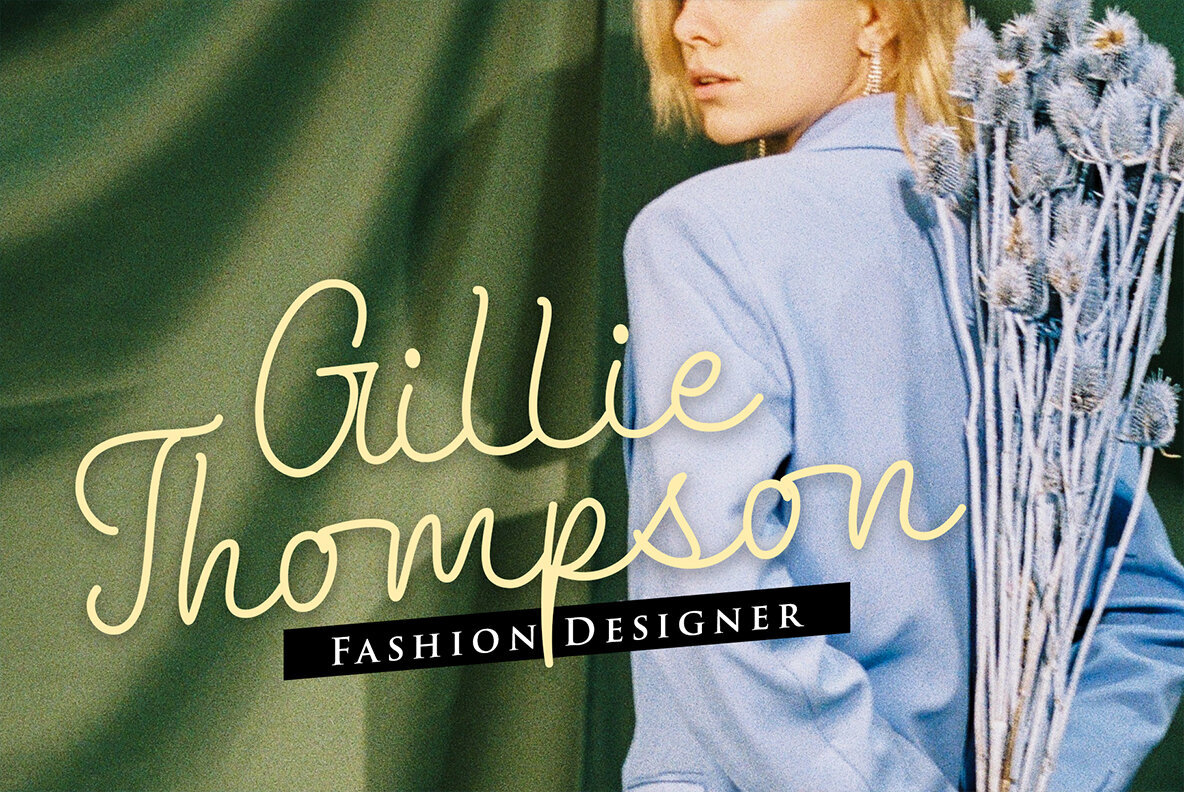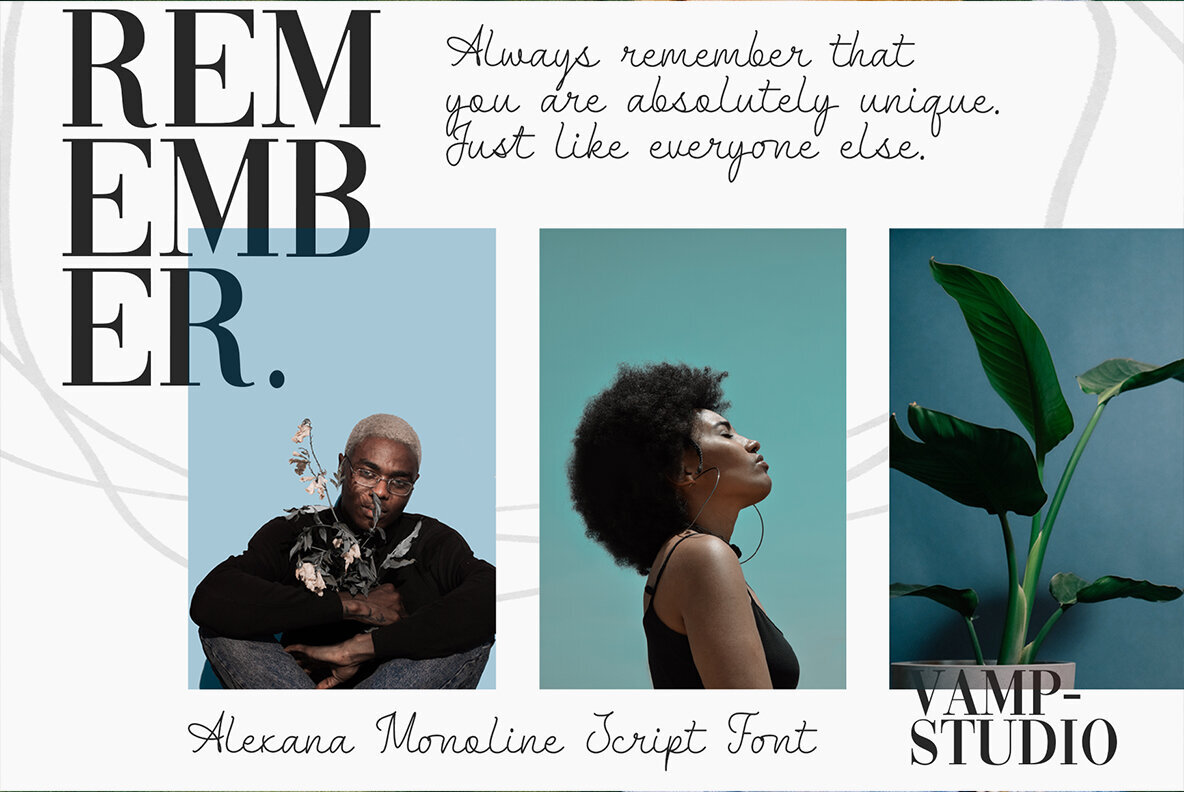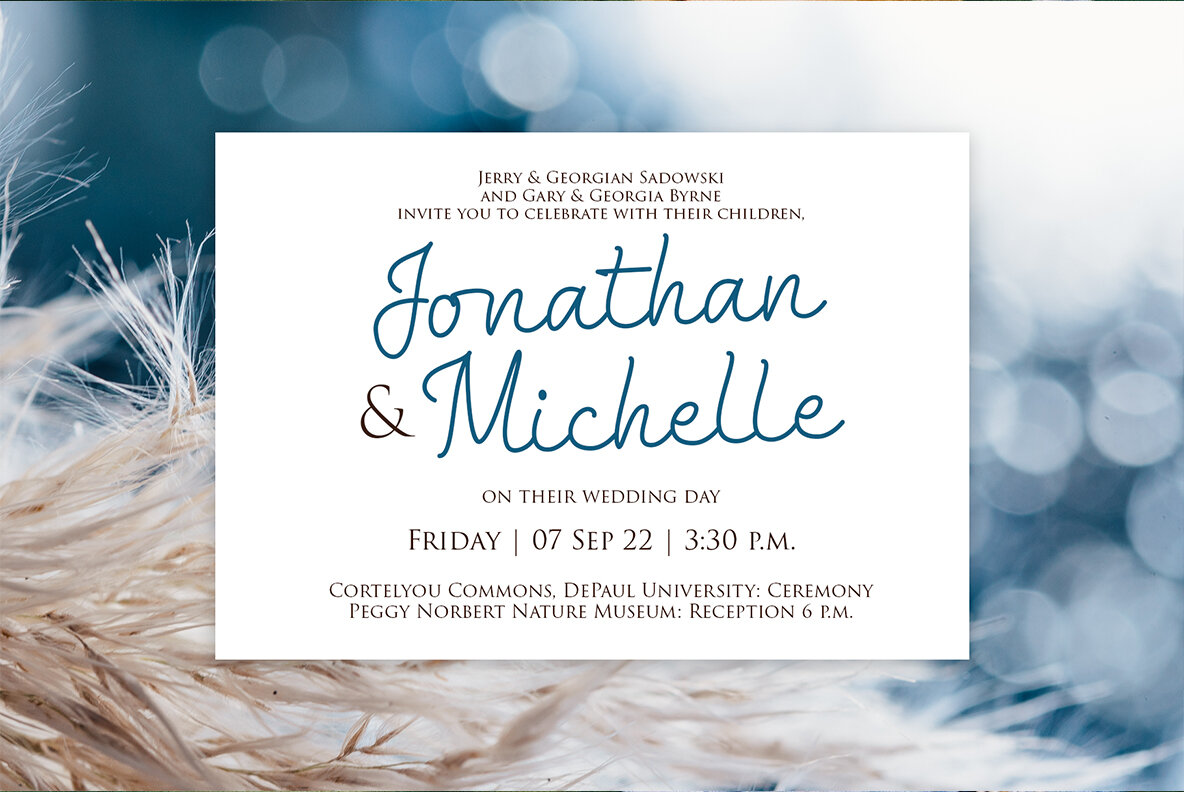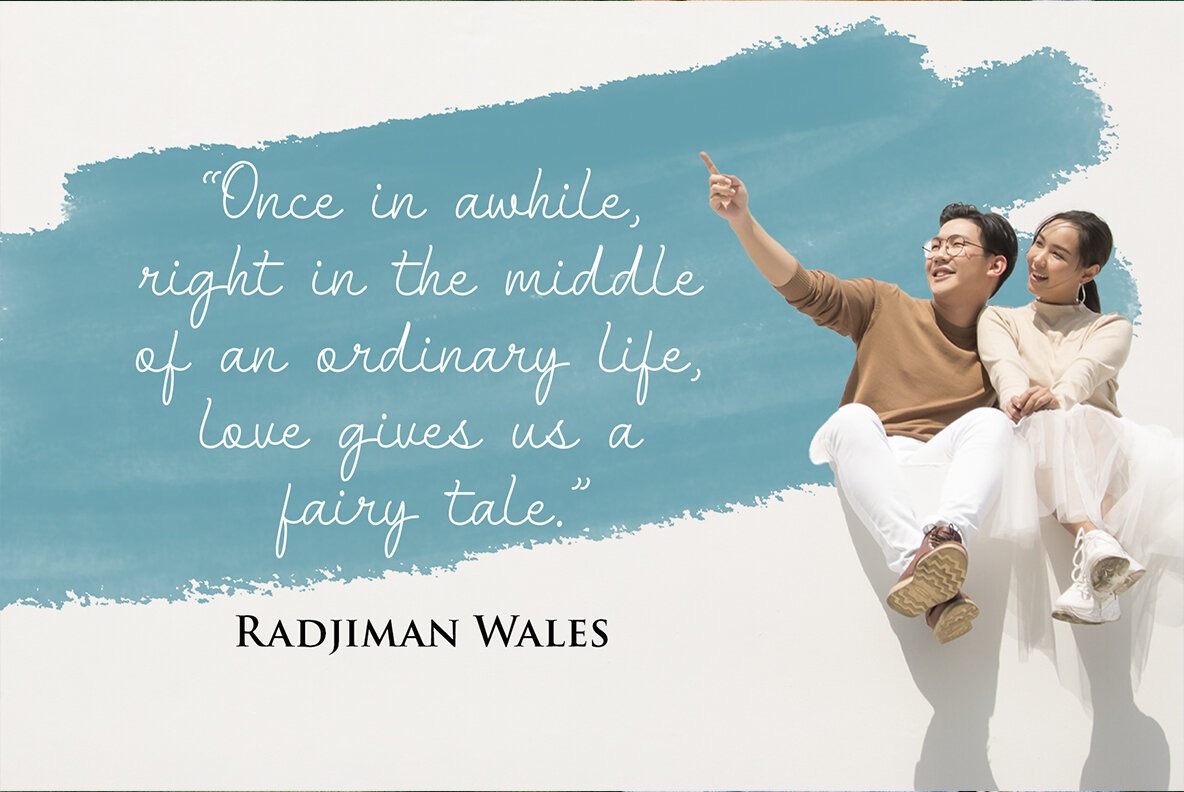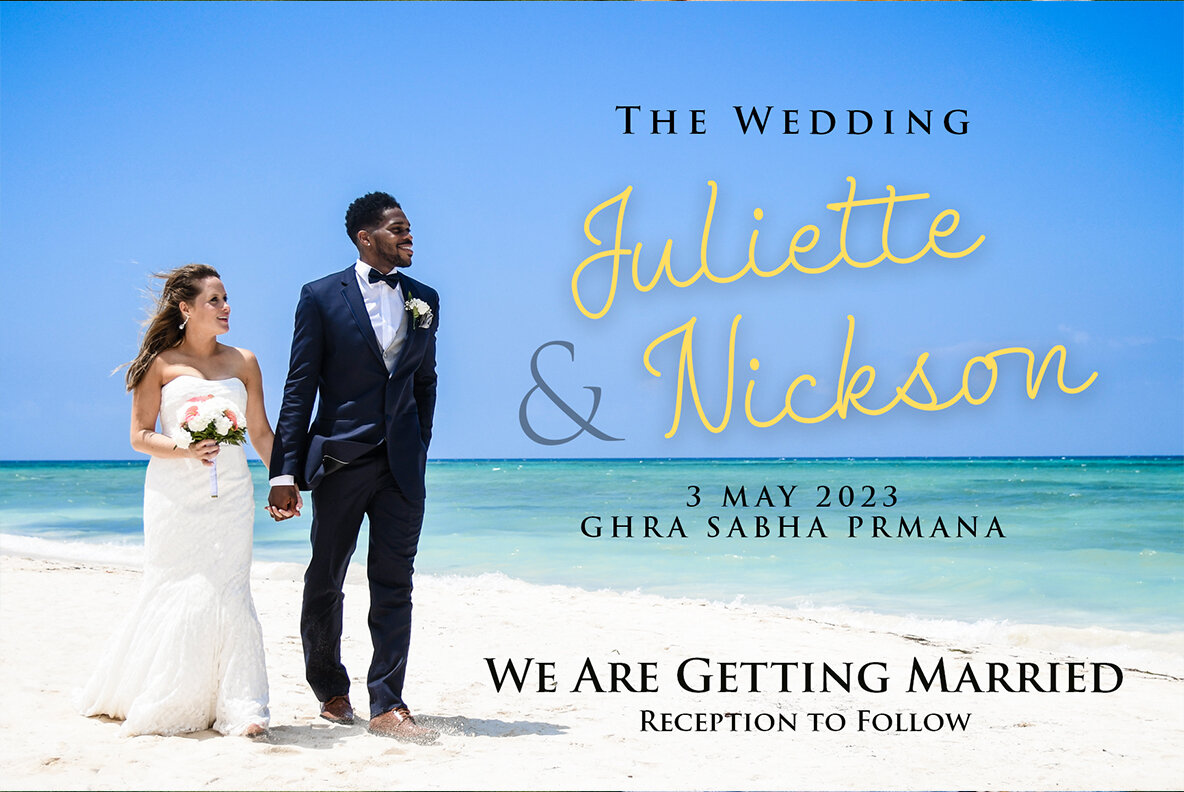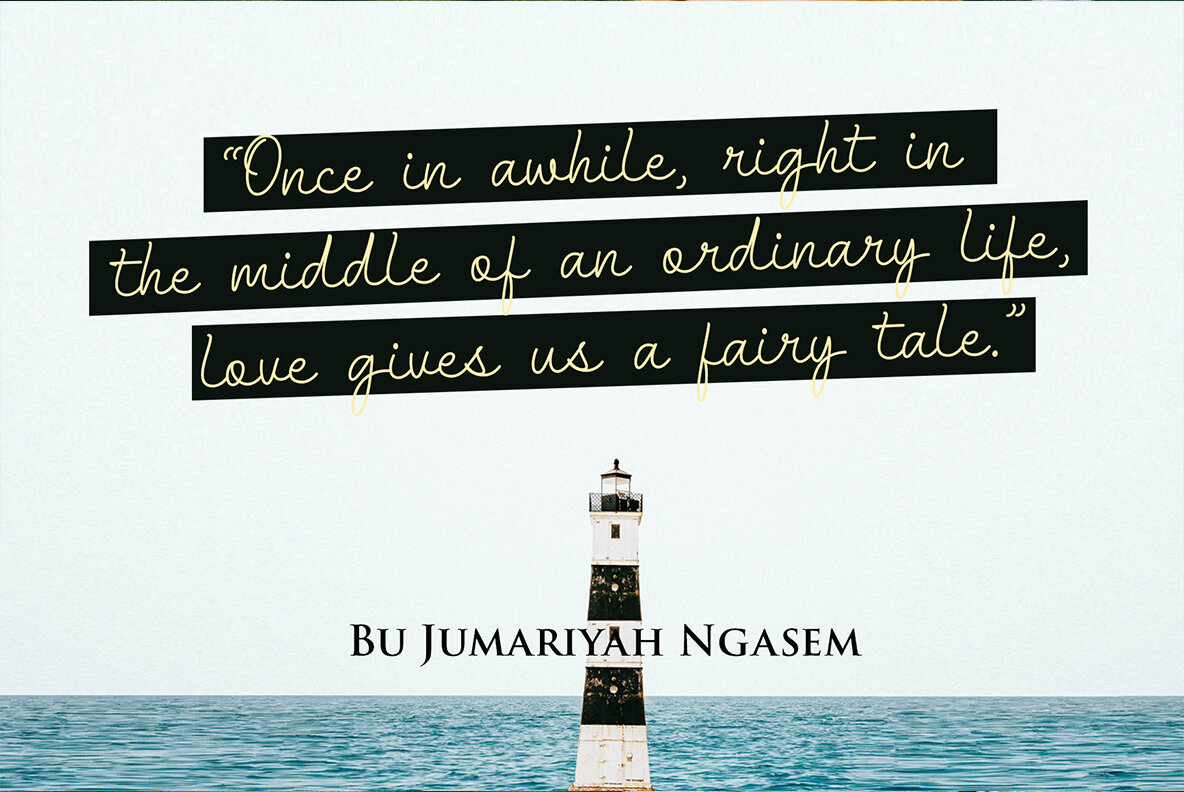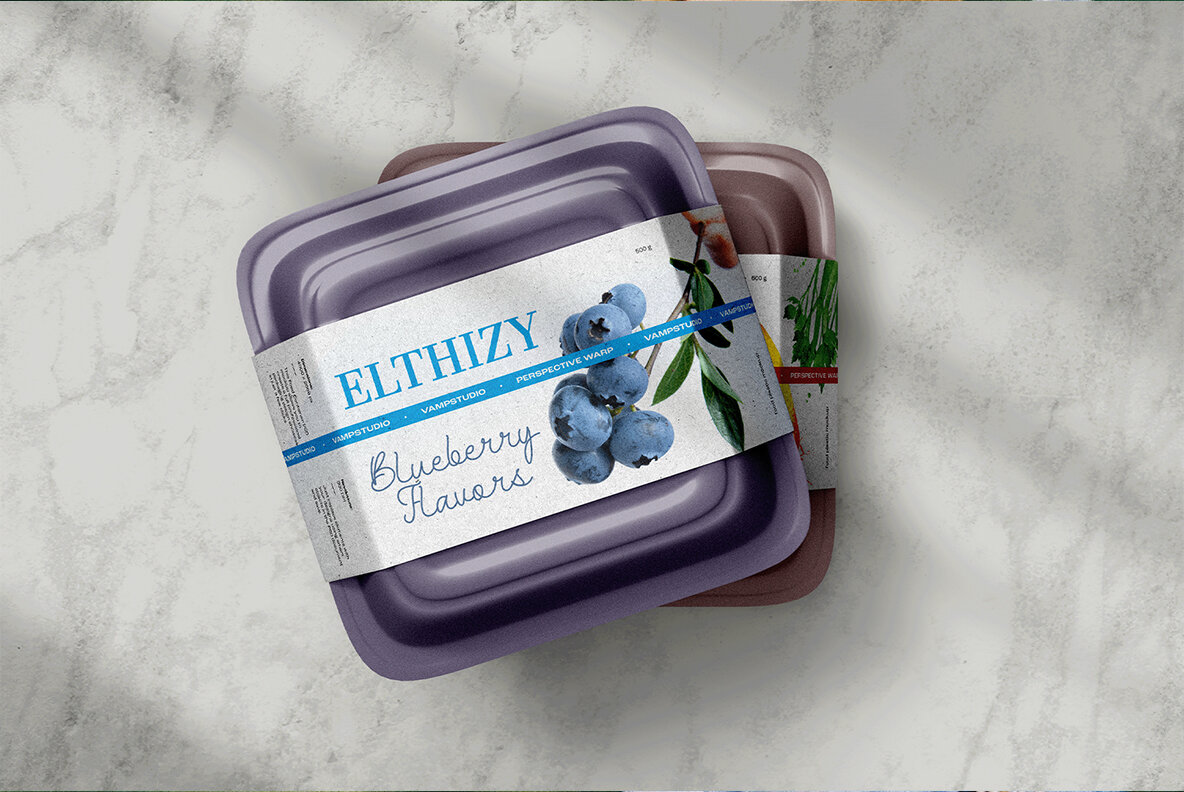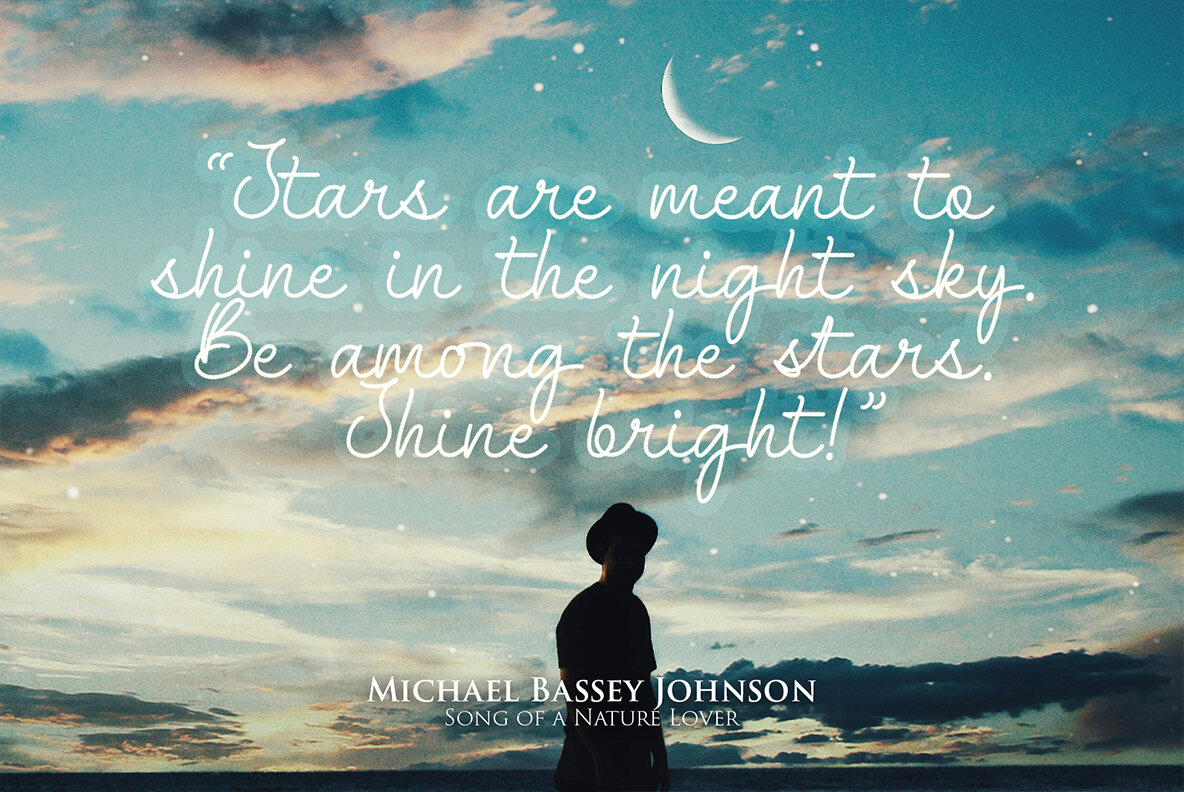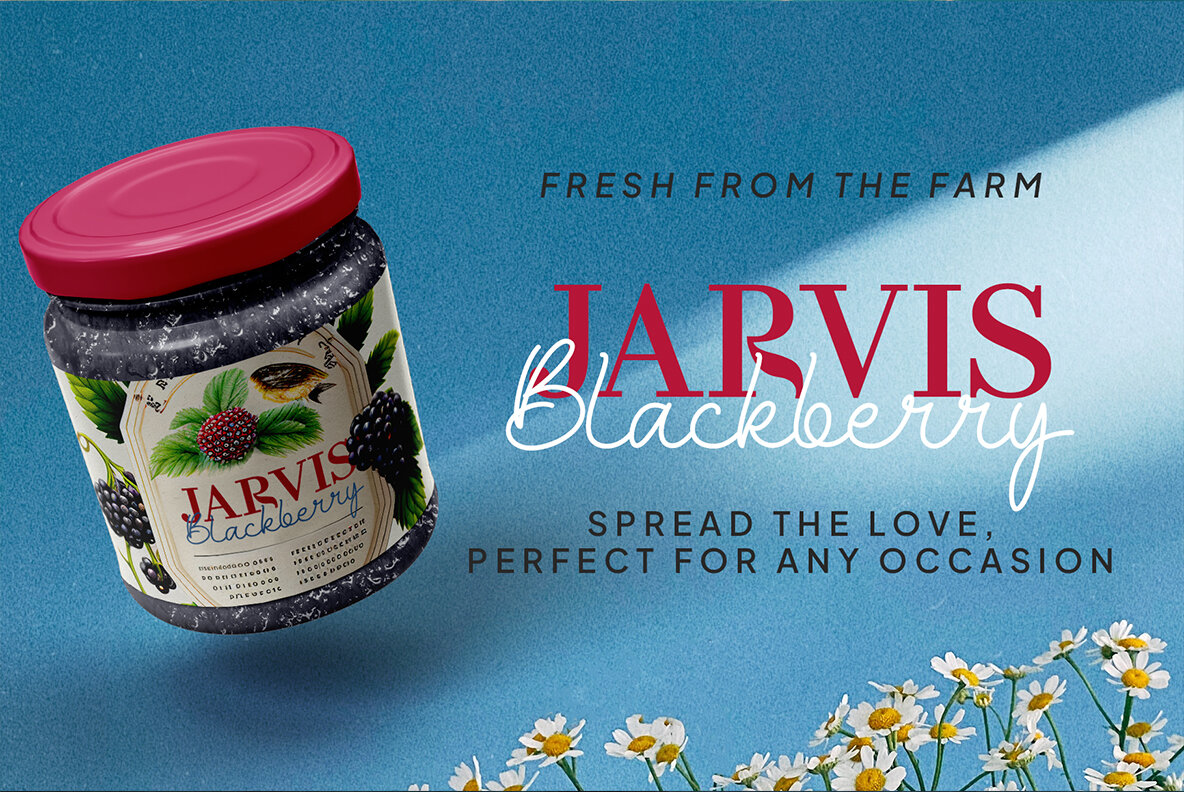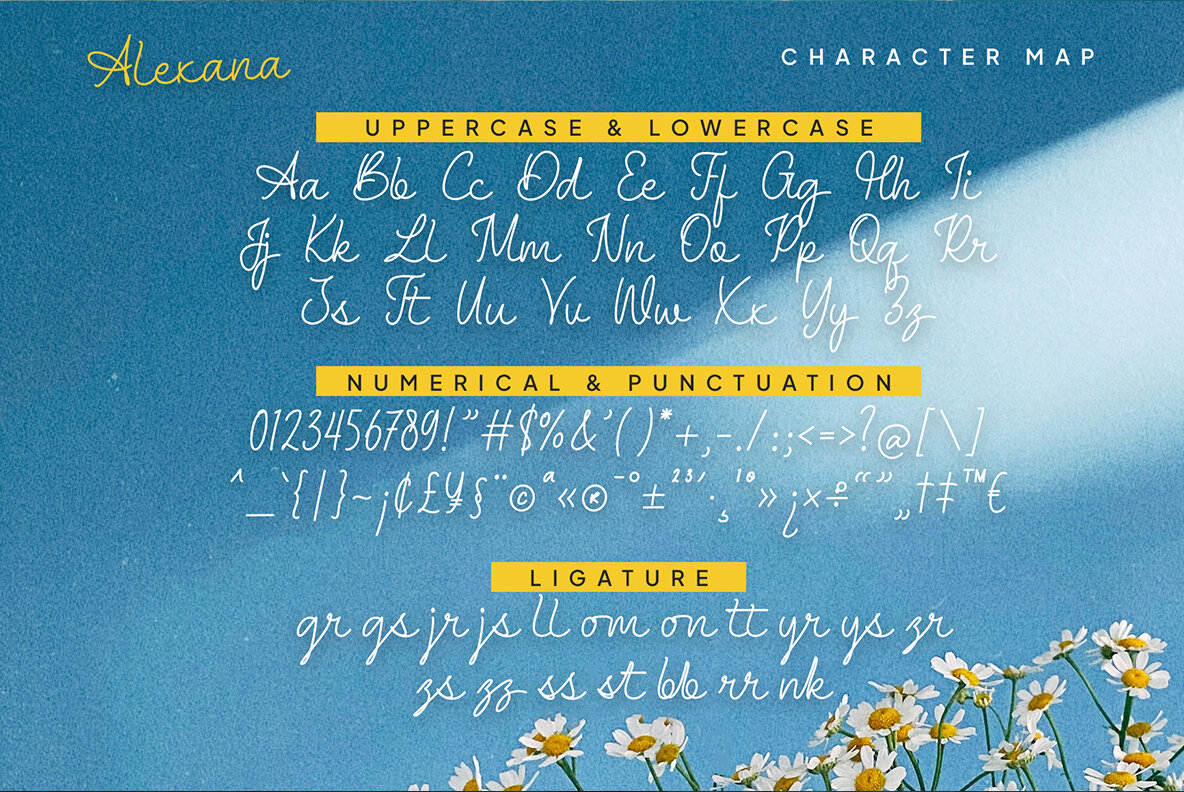
Alexana Font
Alexana Regular
Alexana Script consists of a fashionable sophisticated signature-style script with its own unique curves and an elegant inky flow. Alexana Script is perfect for photography, watermark, social media posts, advertisements, logos & branding, invitation, product designs, label, stationery, wedding designs, product packaging, special events or anything that need handwriting taste.